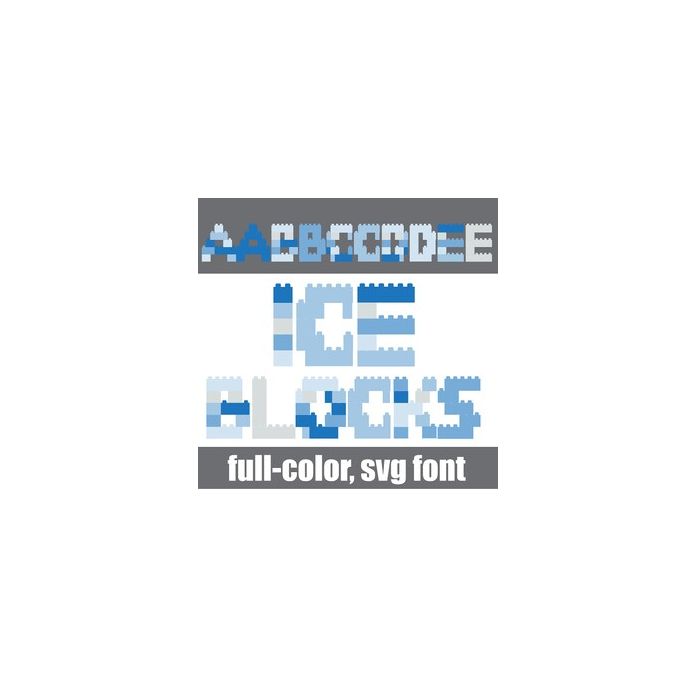
This full-color font features building blocks in a winter color palette. There is an alt case w/ additional colors you can access through your system or Silhouette's glyph map.